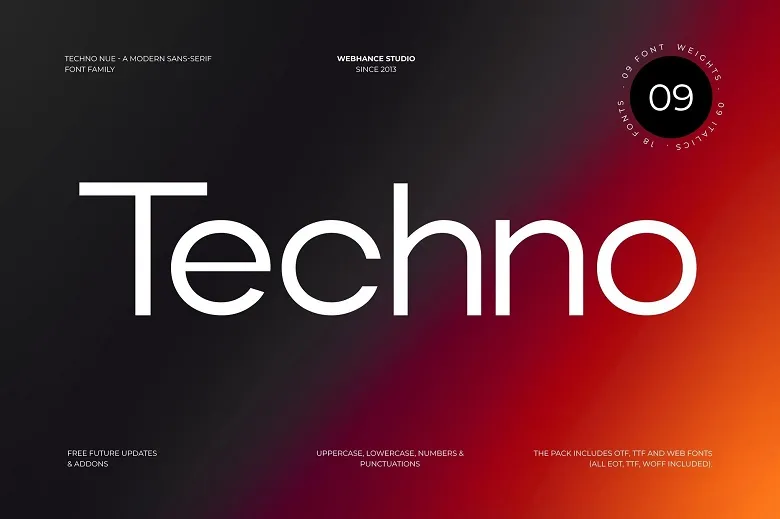
Techno Nue Font Family
Techno Nue is a highly developed sans-serif font family that will complement any design project with its technical and clean look. The family has 9 weights from thin to heavy with italics and thus it becomes a library of 18 fonts. This font is best for branding, logo design, website designing, poster, Instagram post, social media banner, text for reels, video infographic, YouTube thumbnails and many more.